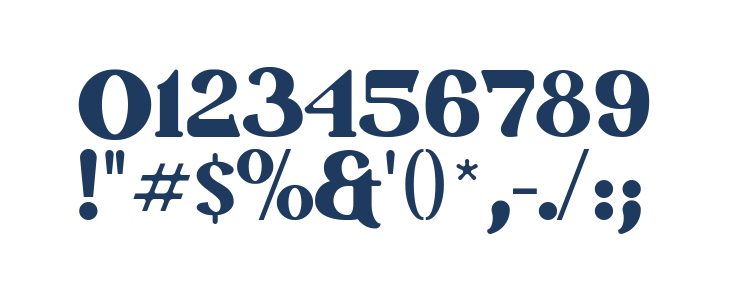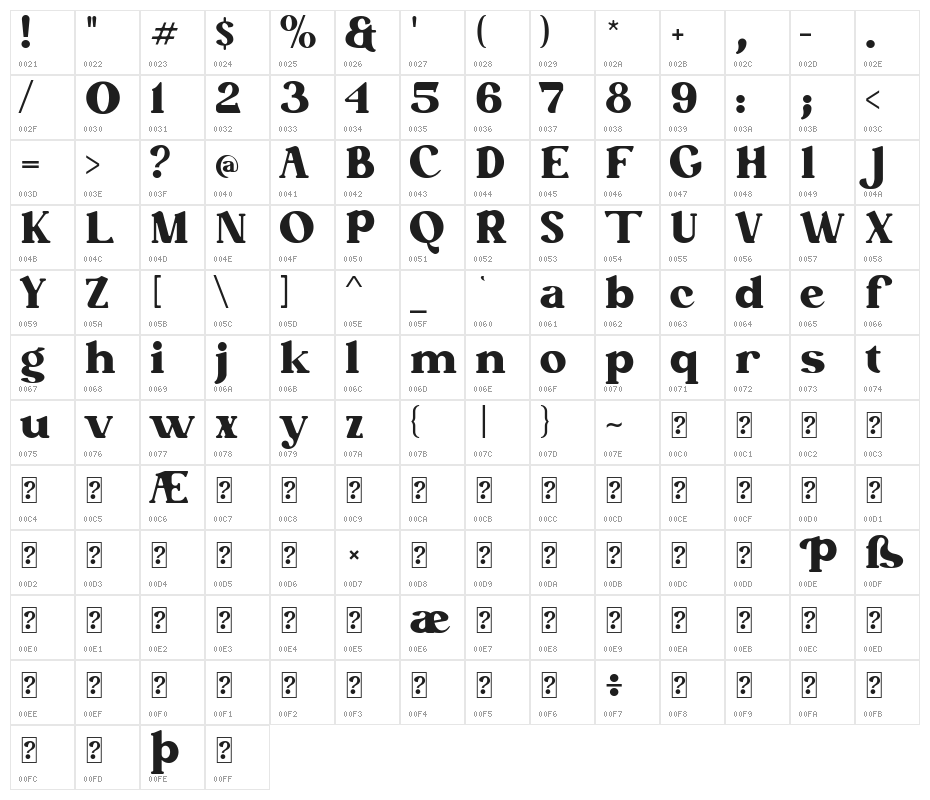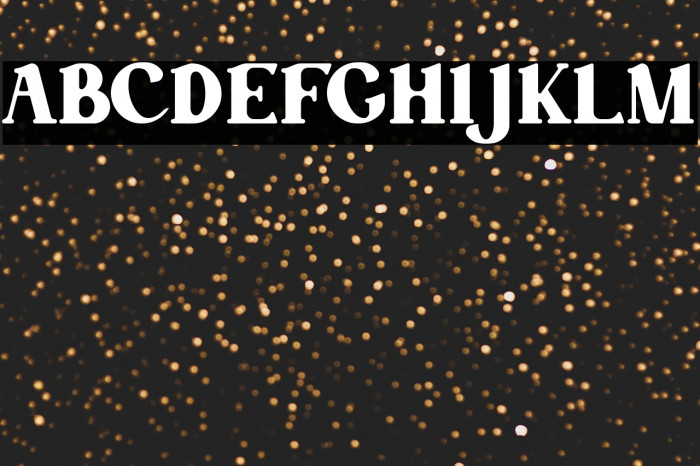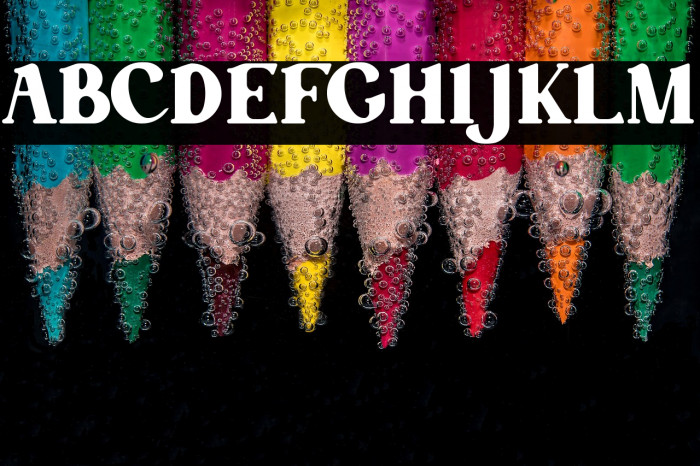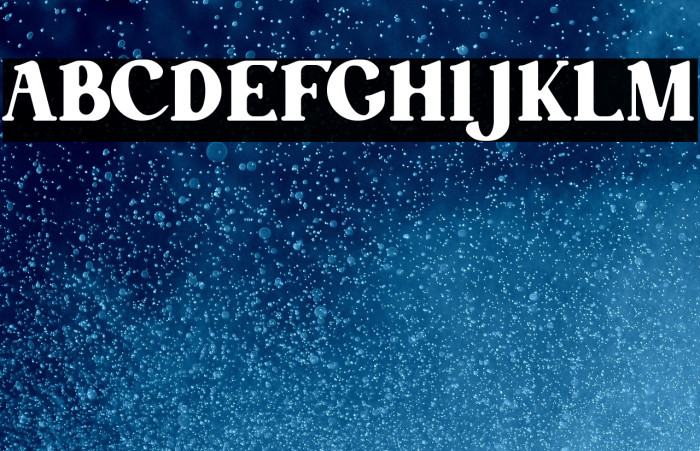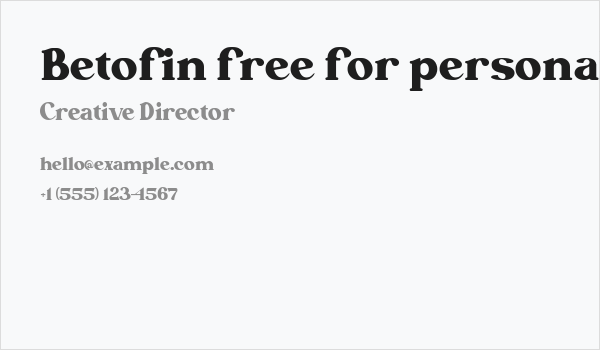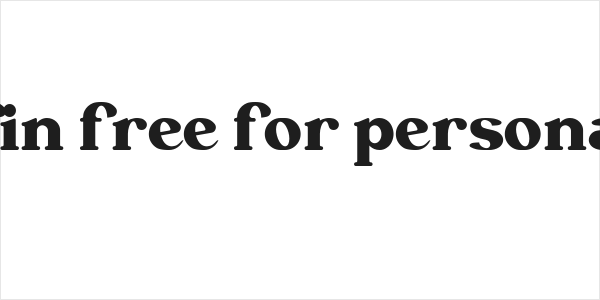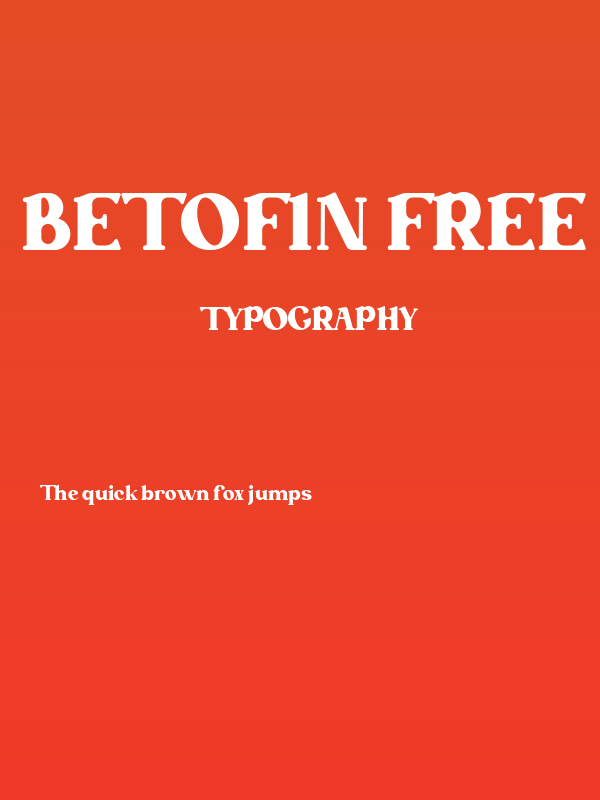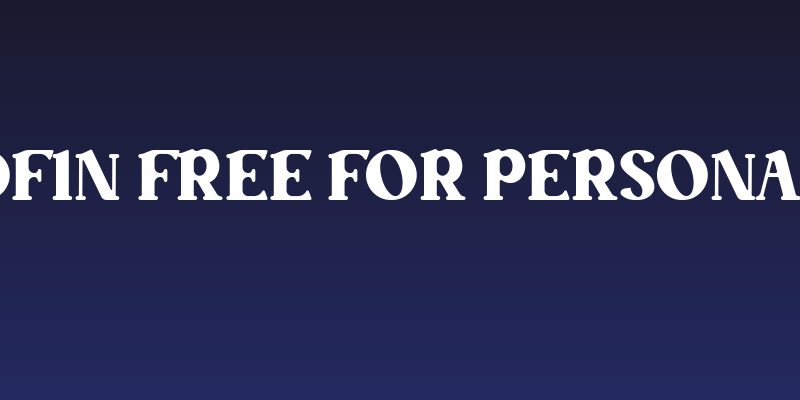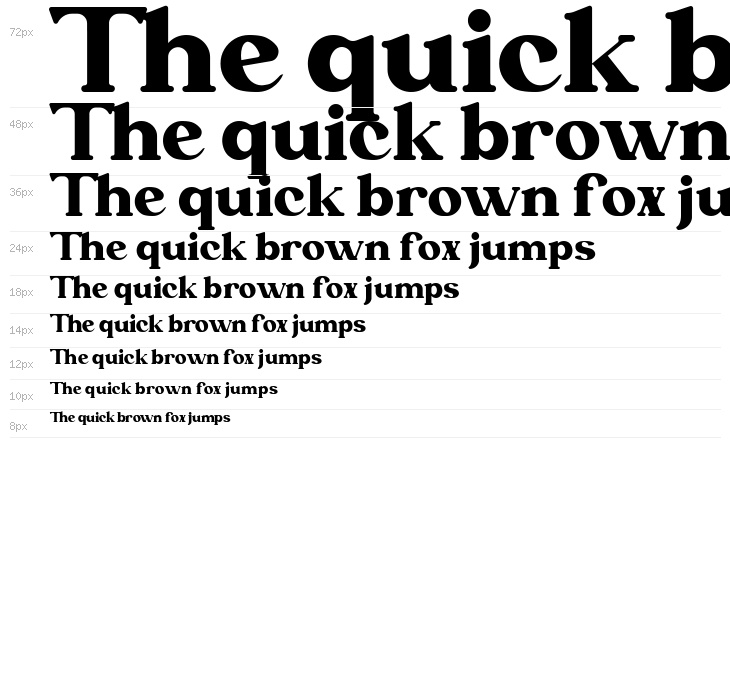
Betofin free for personal use Description
This font features a bold and dynamic style with thick, strong strokes that create a commanding presence on the page. The uppercase letters are particularly striking, with a slight curvature that adds a touch of elegance to the otherwise robust design. The lowercase letters maintain a consistent weight, ensuring readability while retaining the font's bold character. Numbers are equally bold, making them stand out effectively. The special characters are well-integrated, matching the overall aesthetic. This font is ideal for making a statement, with its high contrast and distinctive style.